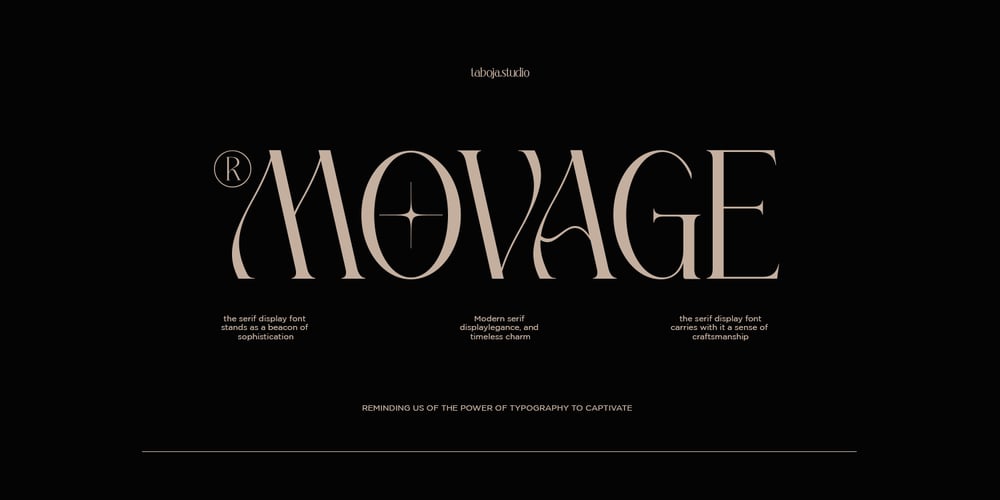
TBJ Movage Serif Display
TBJ Movage Serif Display Font Family was designed by Yusilo Oktaprima Ardani and published by Taboja Studio. TBJ Movage Serif Display contains 1 styles and family package options. Movage is a typeface that combines stylish display style with ease of use. With an elegant design and unique characteristics. Movage presents an elegant design with a modern stylish touch. Each letter is crafted with captivating detail, giving off a Modern Minimalist impression.Movage comes with multilingual alternate characters, allowing for customization of text appearance according to different languages. This ensures that the font can be effectively used in various global communication contexts.The Movage font also features stylish ligatures, adding a unique aesthetic touch to every text composition. These ligatures are designed to enhance the text appearance and create a cohesive and attractive impression. With all these features, Movage is the perfect choice for designers looking for a combination of elegance, style, and ease of use in one beautiful package.TBJ Movage Includes:RegularUppercase And LowercaseAlternates And LigaturesNumerals And PunctuationAccented charactersMultilingual SupportUnicode PUA EncodedWe highly recommend using a program that supports OpenType features and Glyphs panels such as Adobe Illustrator, Adobe Photoshop CC, Adobe Indesign, or CorelDraw, so you can see and access all Glyph variations.While using this product, if you encounter any problem or spot something we may have missed, please don’t hesitate to drop us a message. We’d love to hear your feedbacks in order to further fine-tune our products.Stay creative and have a wonderful day.